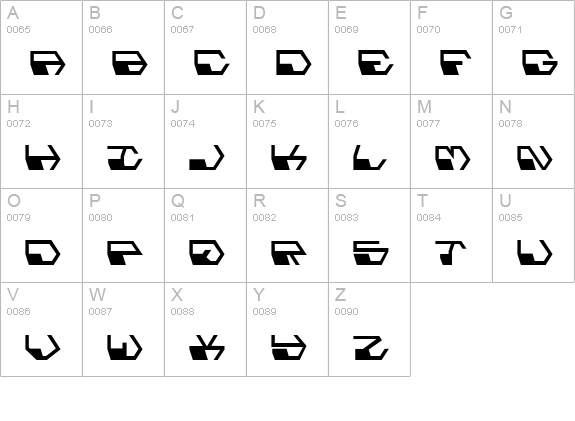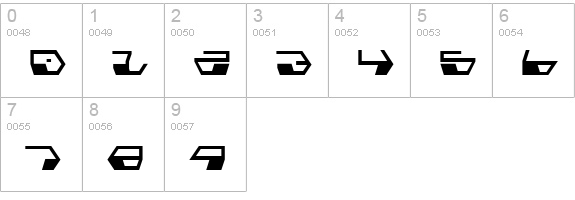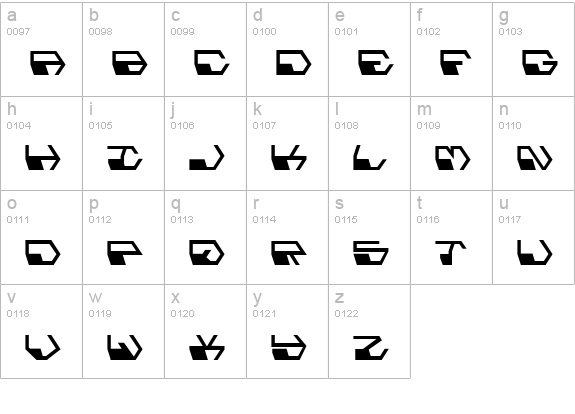
The Deranian font is a striking and elegant typeface that exudes sophistication and style. With its clean lines and modern appeal, this font is perfect for a wide range of design projects, from branding to editorial design. What sets Deranian apart is not just its aesthetic appeal, but also the fact that it is available for free download at FontsMarket.com. This means that you can easily access this beautiful font and use it in your projects without any cost involved. Whether you are working on a logo, website design, or print materials, Deranian font will elevate your work and give it a polished and professional look. Don't miss out on the opportunity to enhance your designs with this stunning typeface - download Deranian for free today at FontsMarket.com!